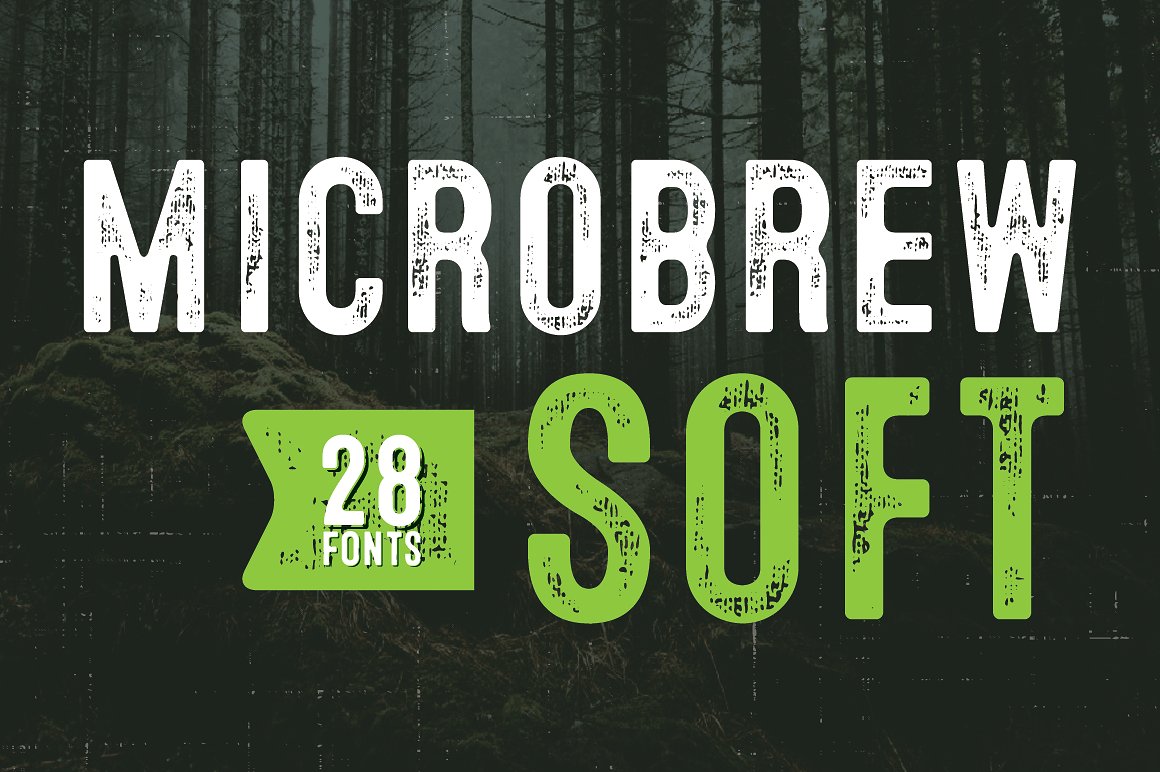
Microbrew Soft Mega
Microbrew Soft Mega Font
Microbrew Soft Mega Font Family
Microbrew Soft is the latest addition to the Microbrew family of fonts. What sets it apart are the soft edges and clean outlines, yet it still retains the retro and textured feel. You can get as clean or dirty as you want! With 27 individual styles plus an eclectic set of ornaments and catchwords, the possibilities are limitless when it comes to how many faces the font family can wear in your design. Microbrew Soft sports a nice mix between wood type poster style and vintage letterpress. The more detailed styles work well at large sizes, and the cleaner styles add legibility at smaller sizes.
Microbrew Soft Mega